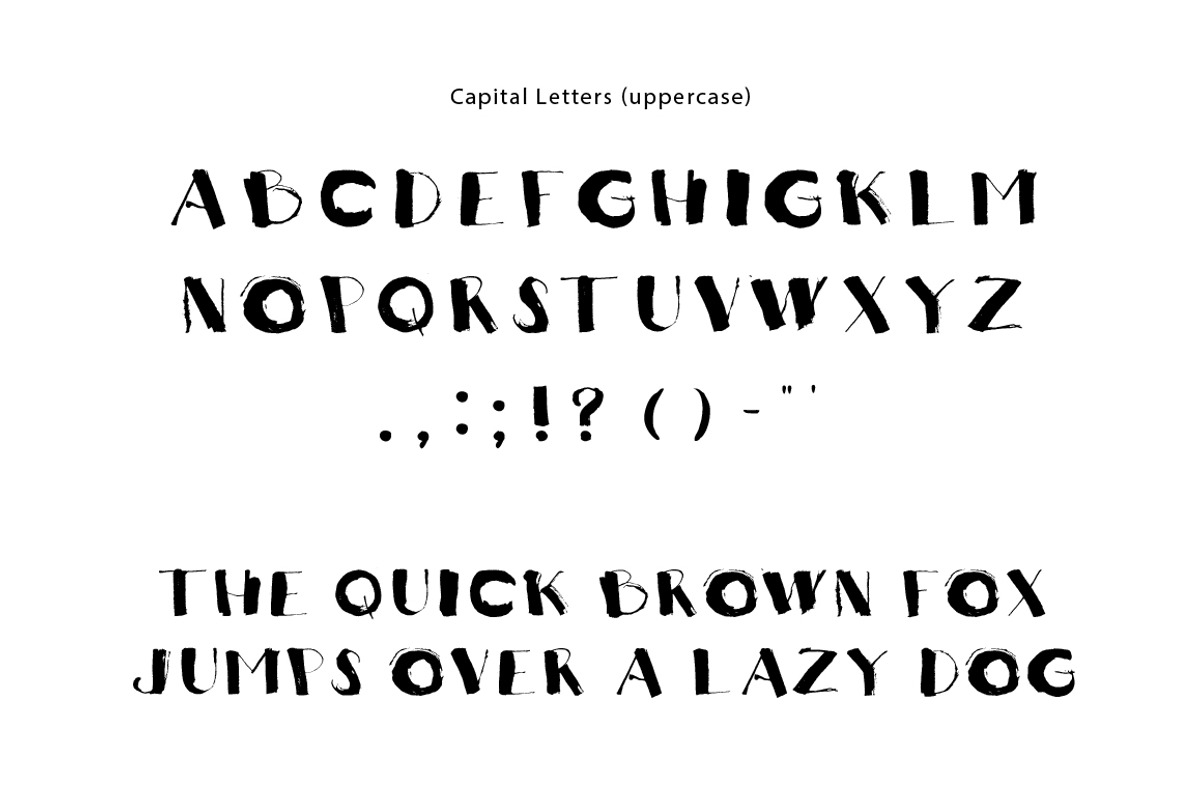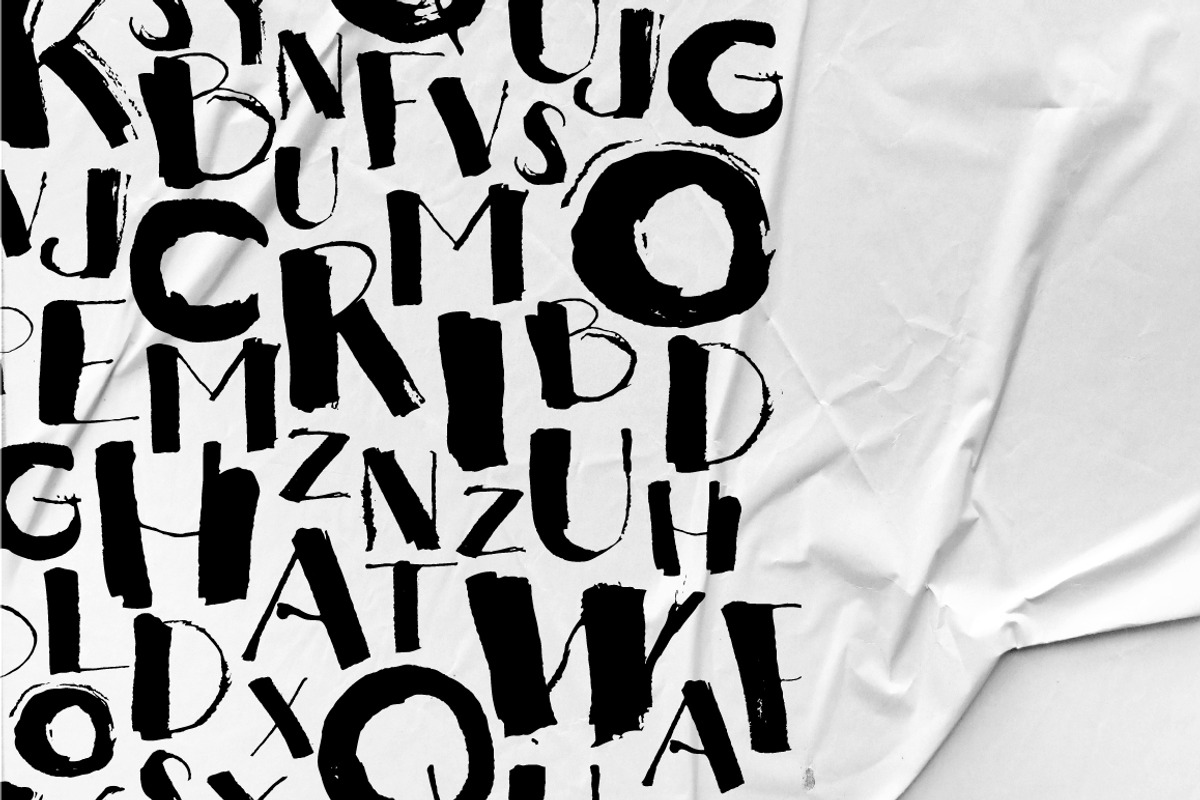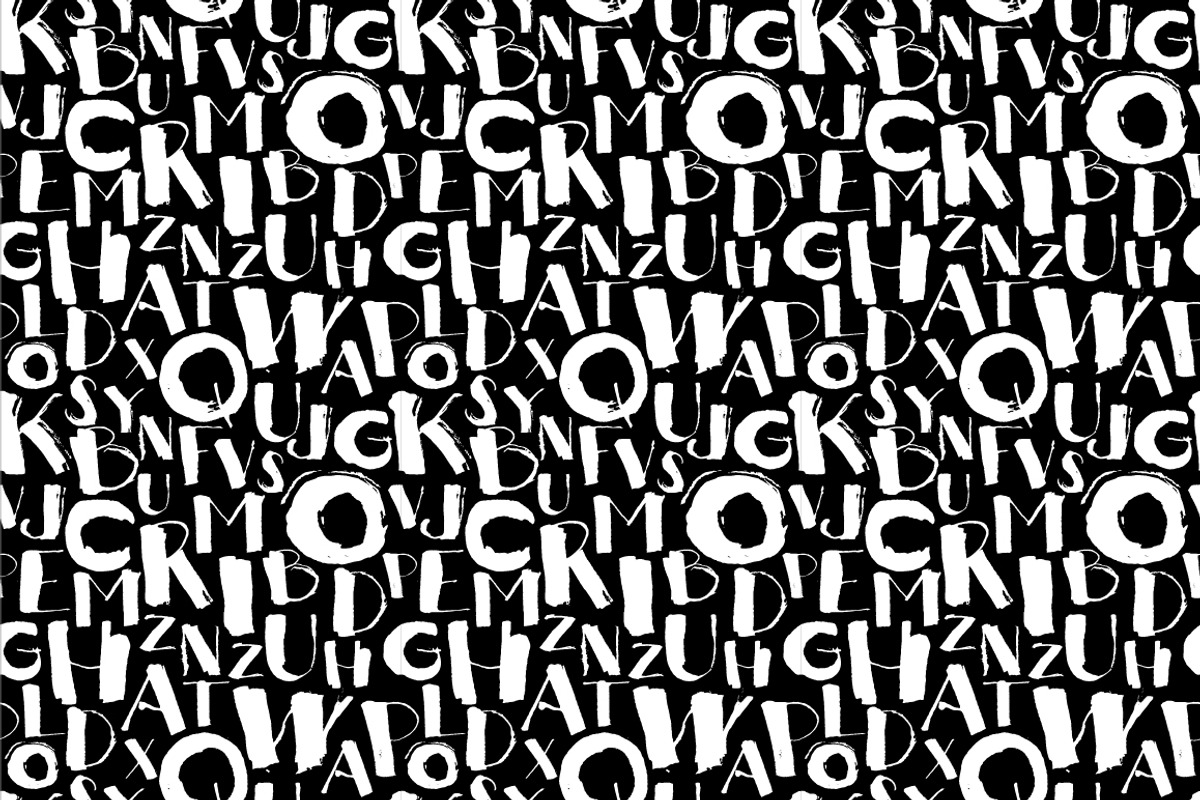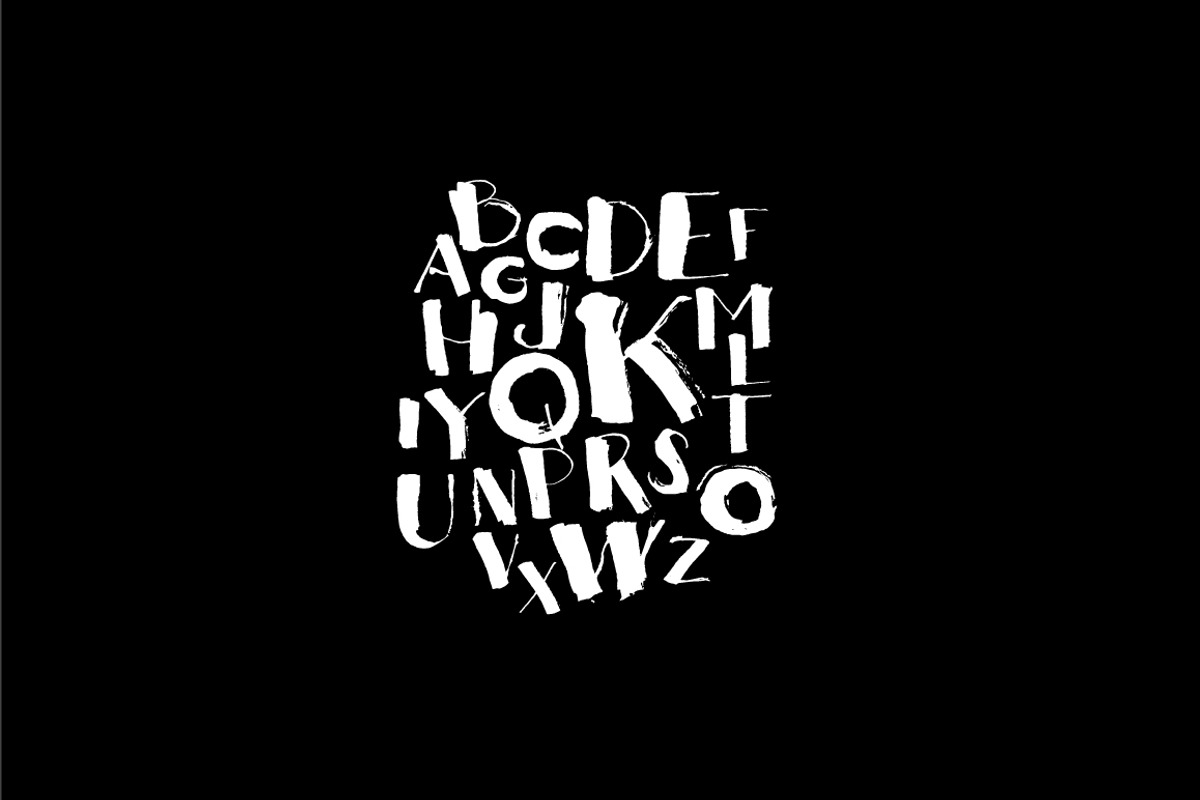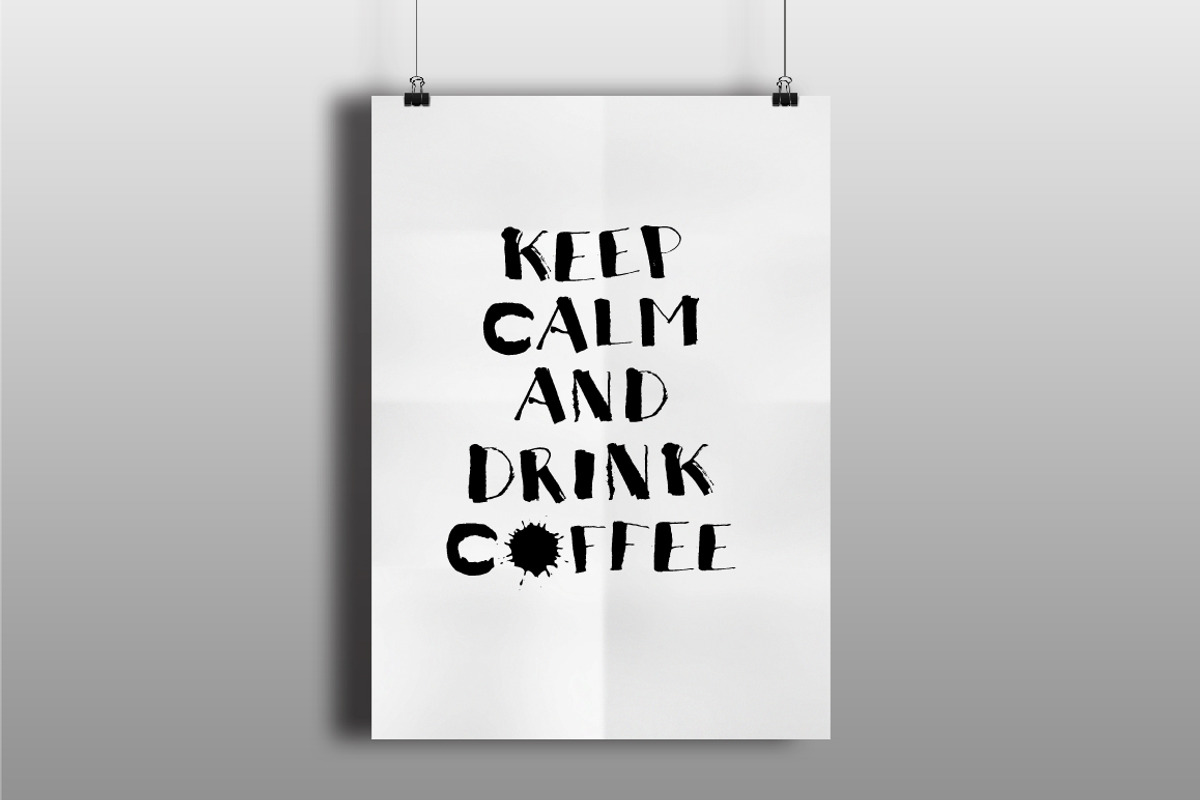
Thick Pen Font
Introducing the Thick Pen Ink Grunge Handwritten Sans Serif Font, a bold typeface designed for impactful statements. Its daring strokes and distinctive imperfections command attention, creating a striking contrast between thick and thin elements.
Captivating Magazine Headlines
Statement T-shirt Designs
Attention-grabbing Typography
Thick Pen Font by VasilkovS fits naturally into Branding, posters, packaging, typography.